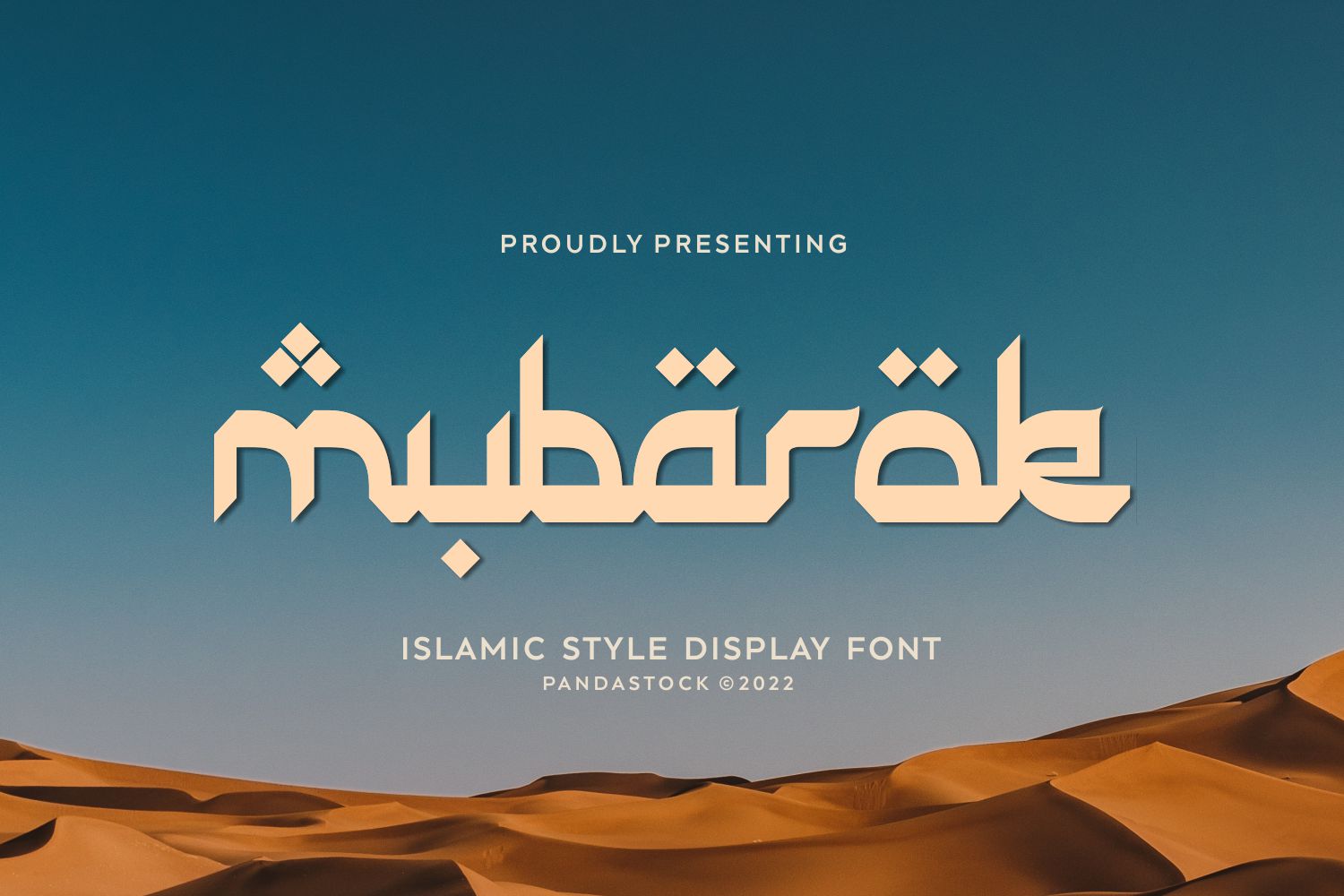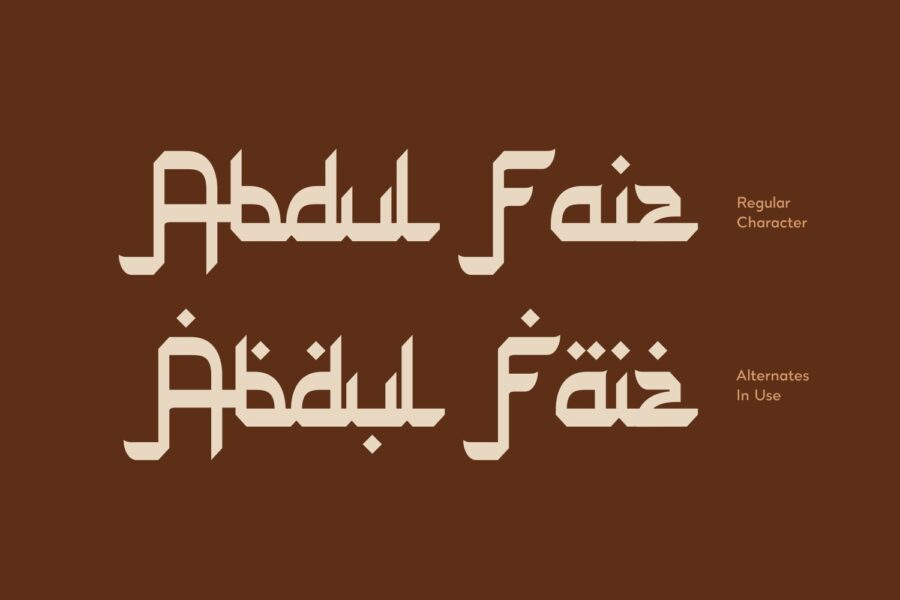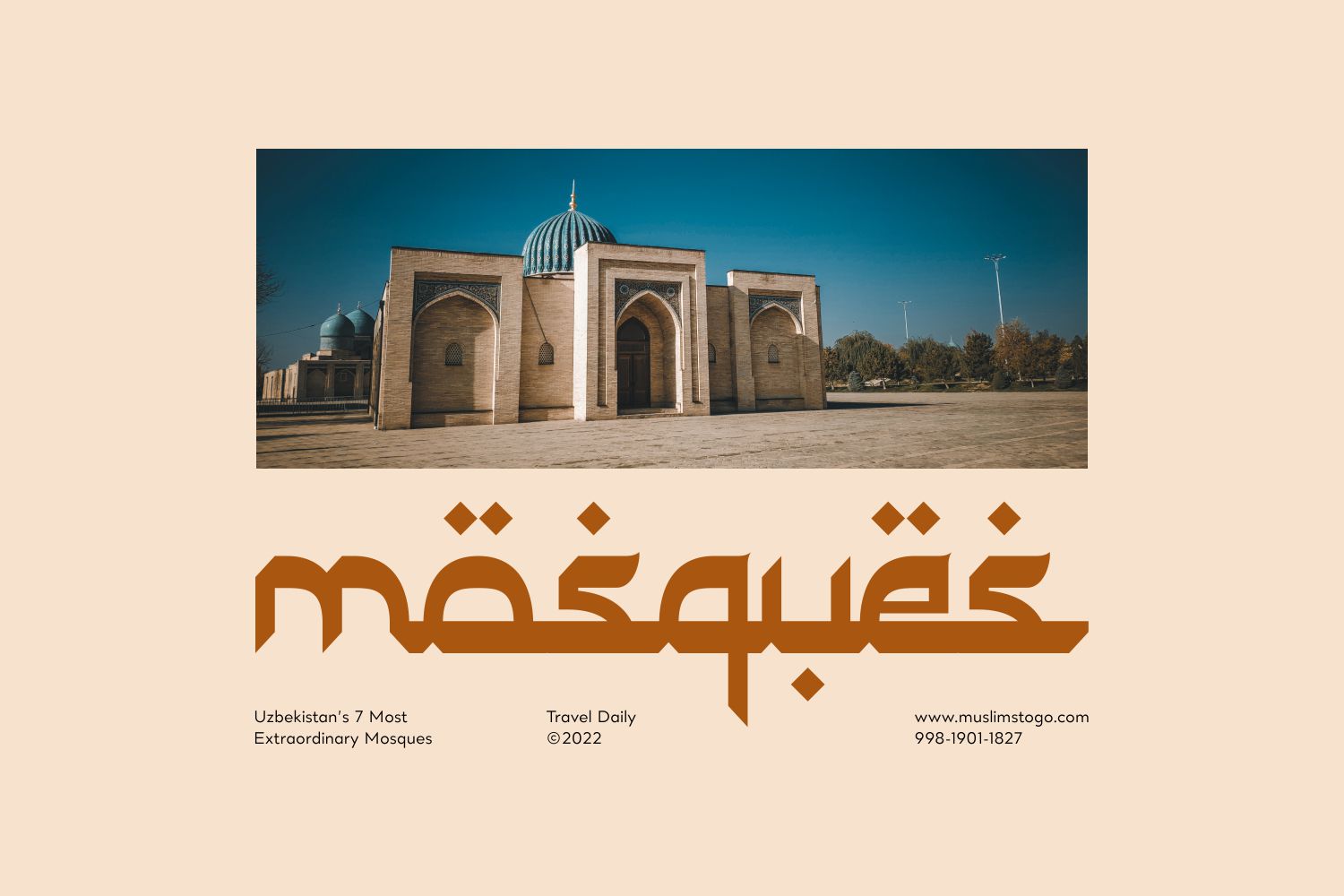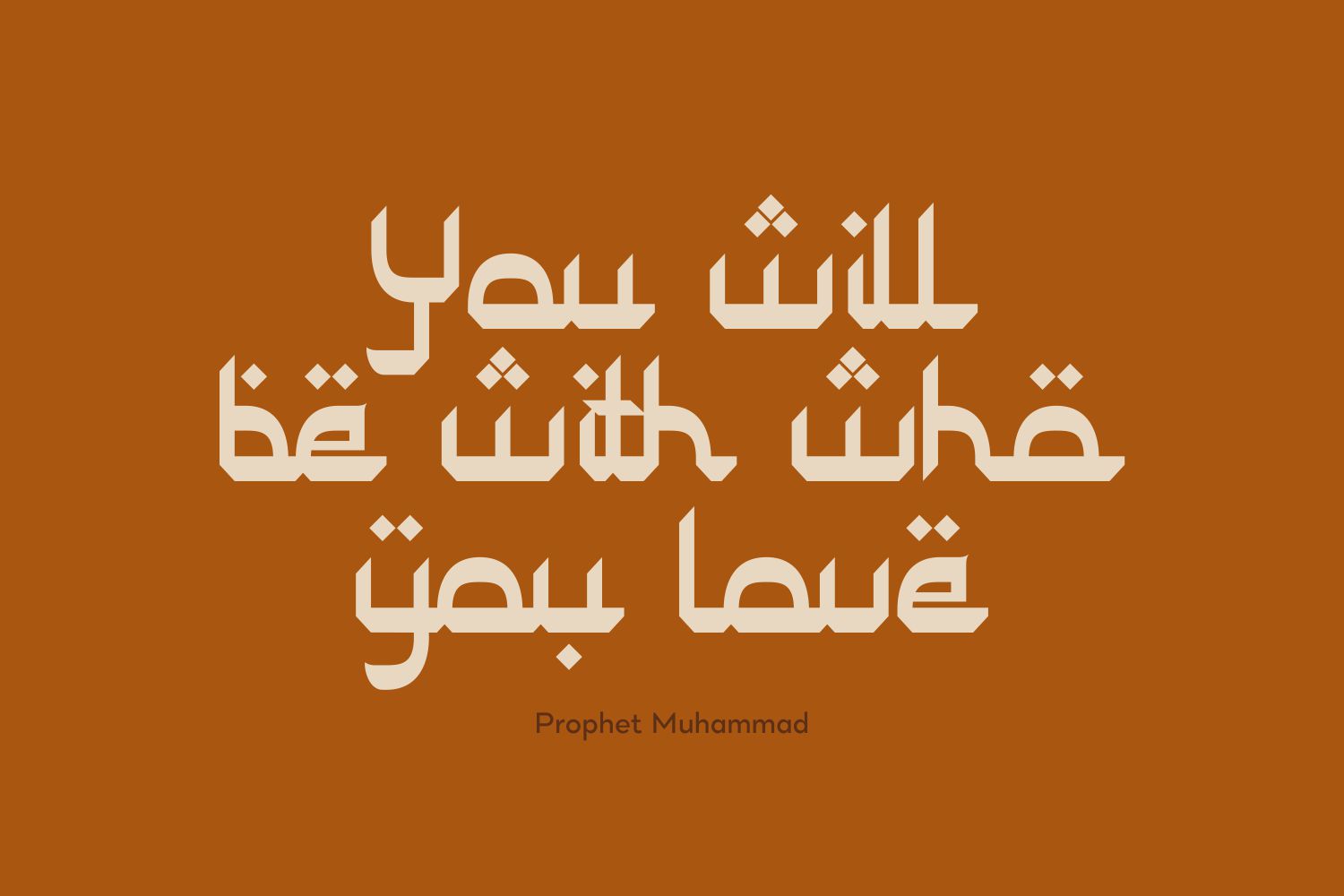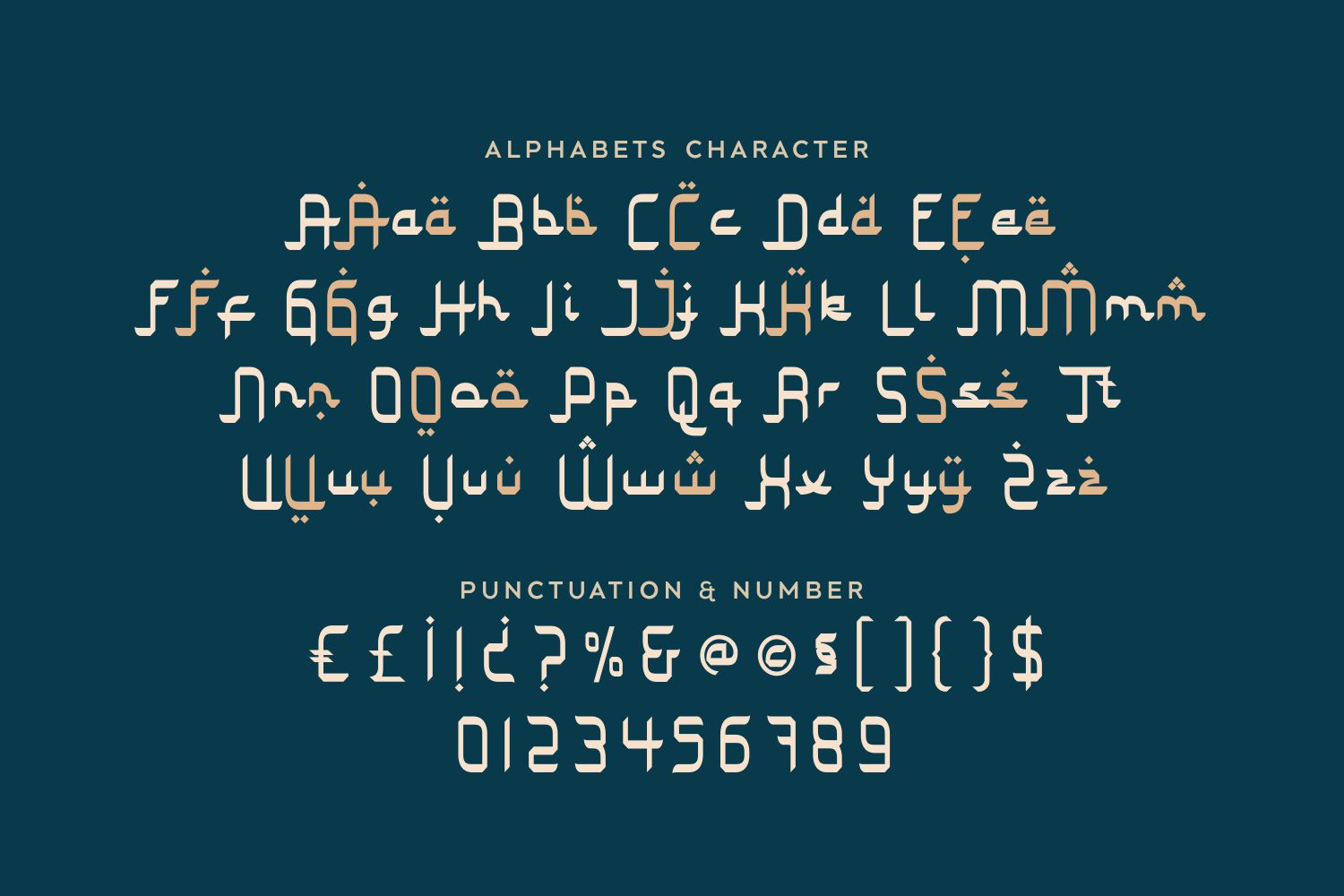
Mubarak
Mubarak is an Islamic Style Display Font inspired by Arabic calligraphy and geometric design. With its bold angular forms and clean lines, Mubarak brings a strong cultural identity while maintaining modern readability. Perfect for projects that celebrate Islamic tradition and heritage, this font bridges the elegance of Middle Eastern script with contemporary typography.
Equipped with stylistic alternates and versatile characters, Mubarak is ideal for branding, posters, book covers, logos, and event designs that require an authentic cultural feel. Whether used for travel promotions, religious events, or artistic projects, Mubarak creates a timeless impression that resonates with sophistication and identity.